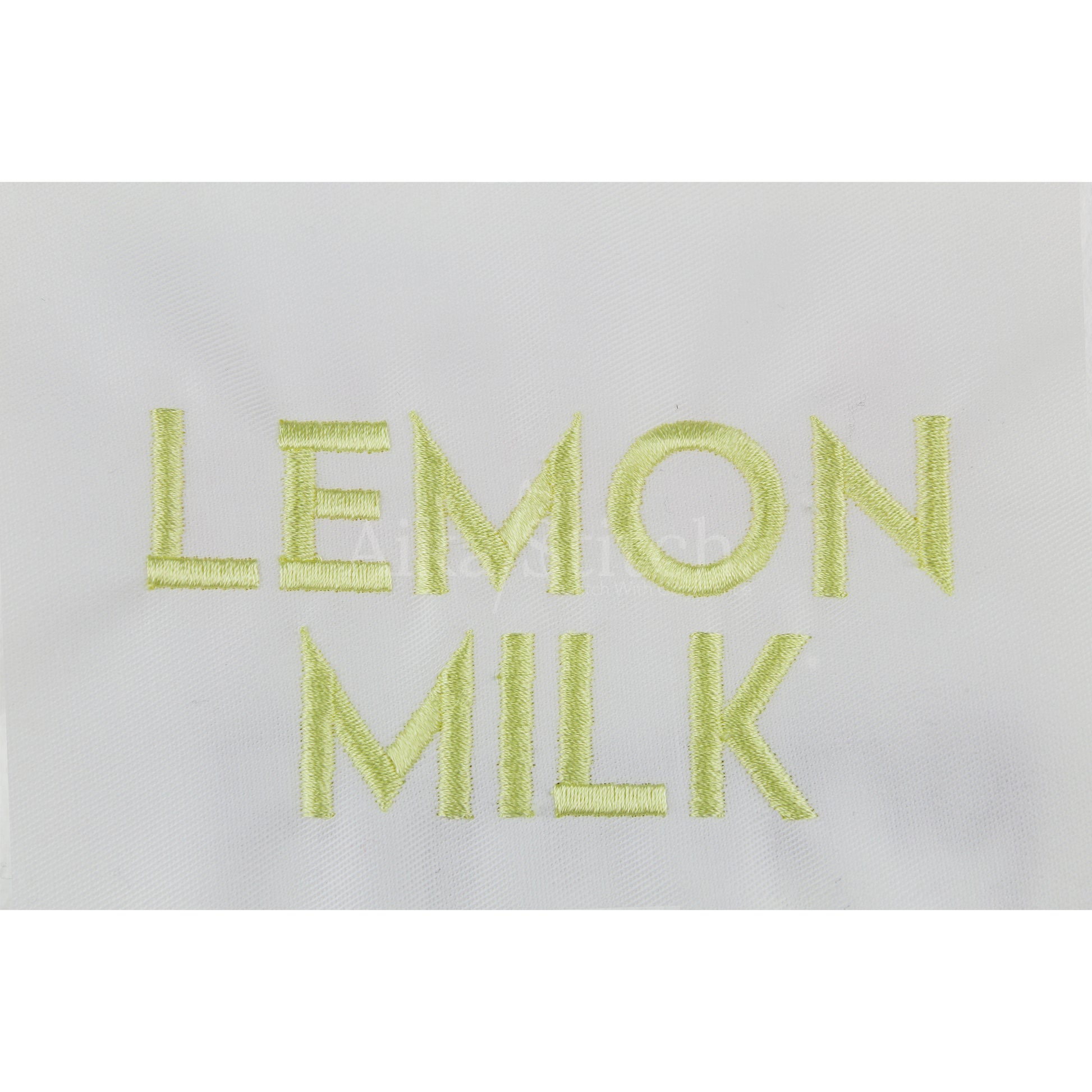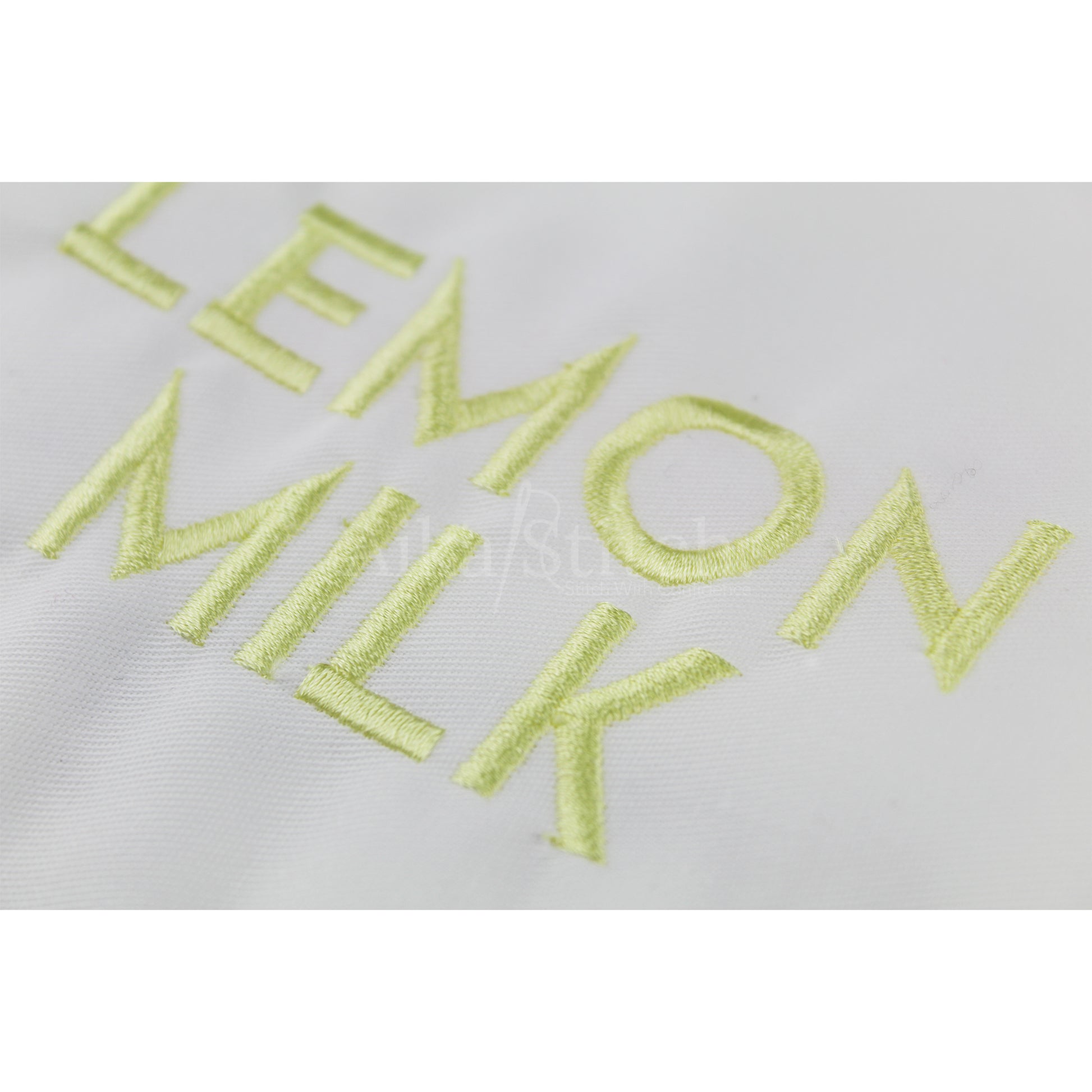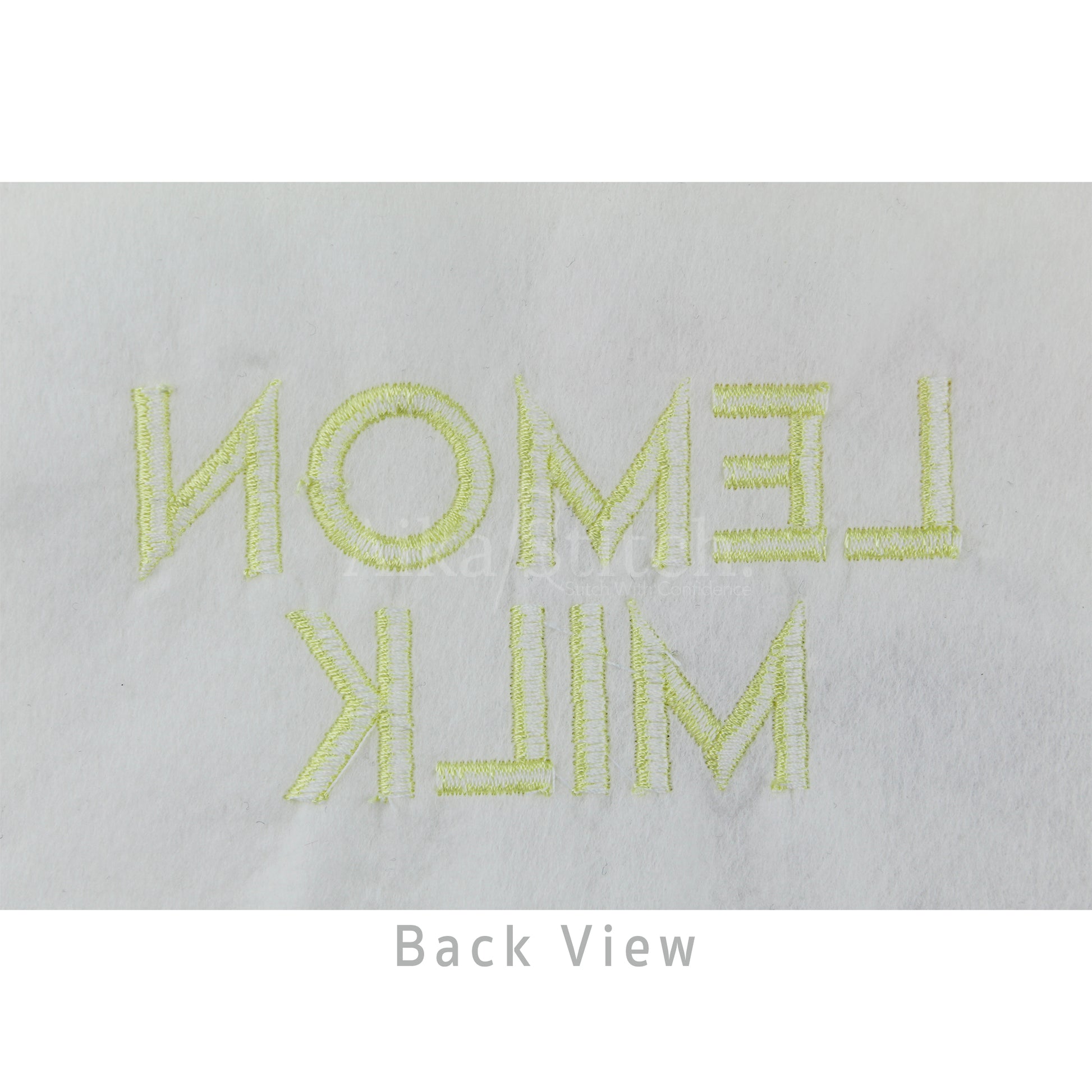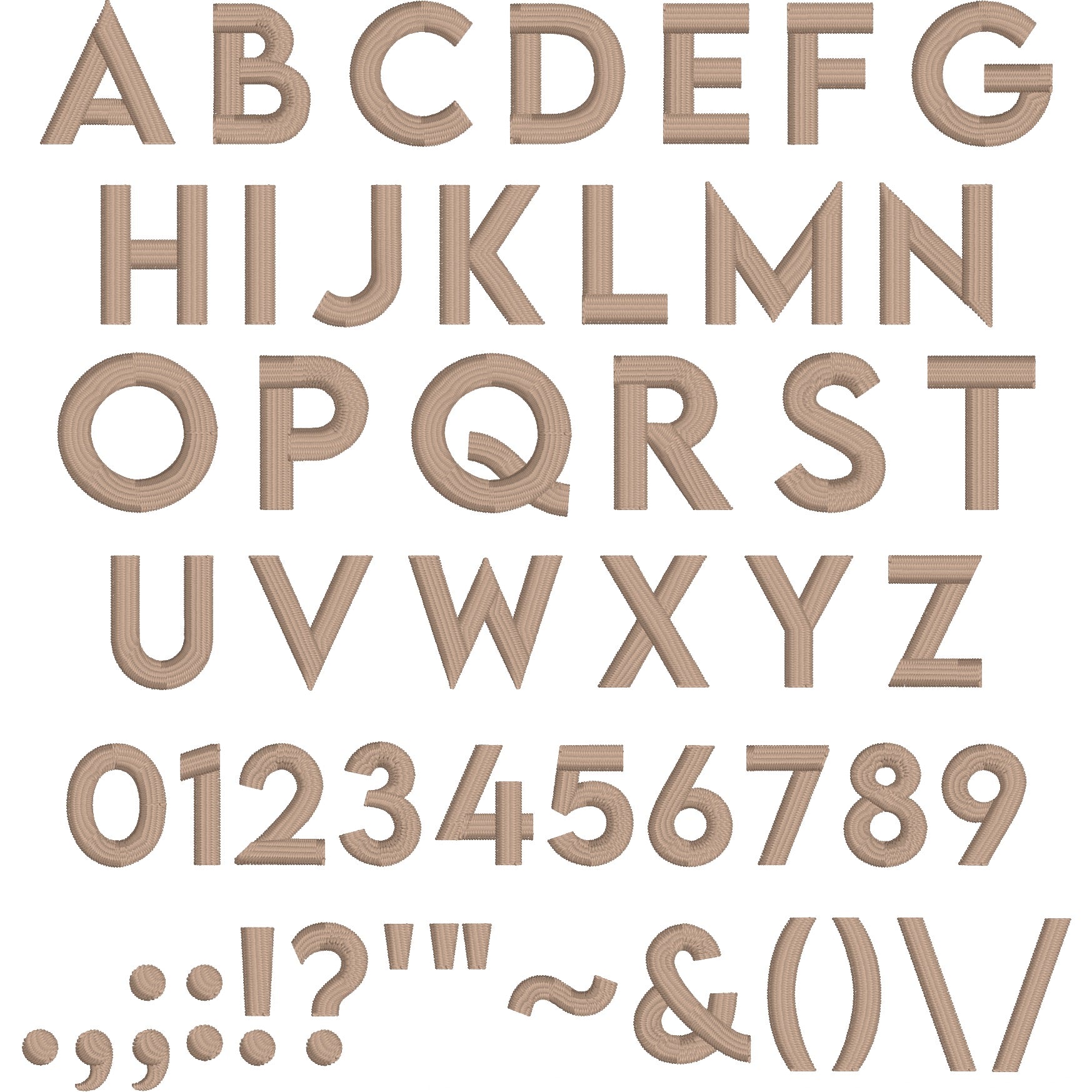
Lemon Milk Basic Neutral Bold Embroidery Font
Lemon Milk is a Basic Neutral Bold machine embroidery font featuring beautiful satin stitch lettering. Perfect for shirts, towels, hats, baby gifts, monograms, and small business embroidery projects.